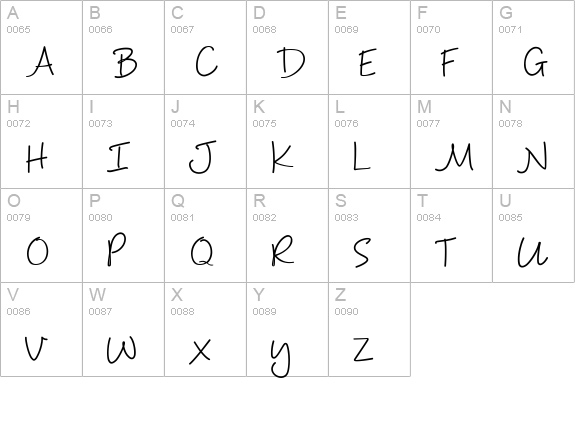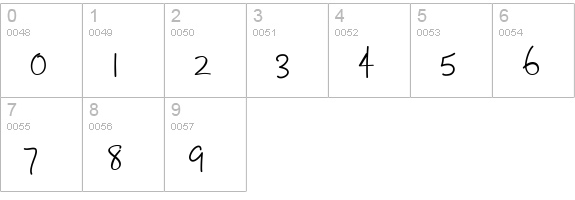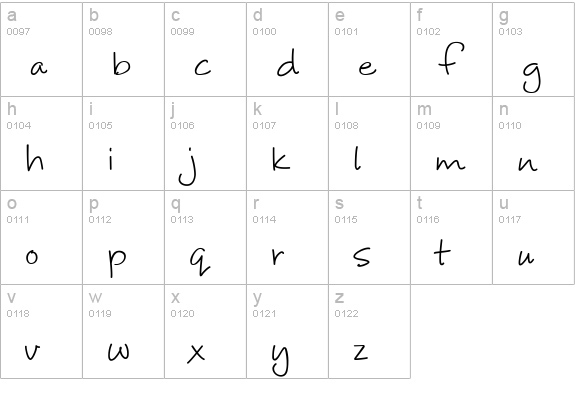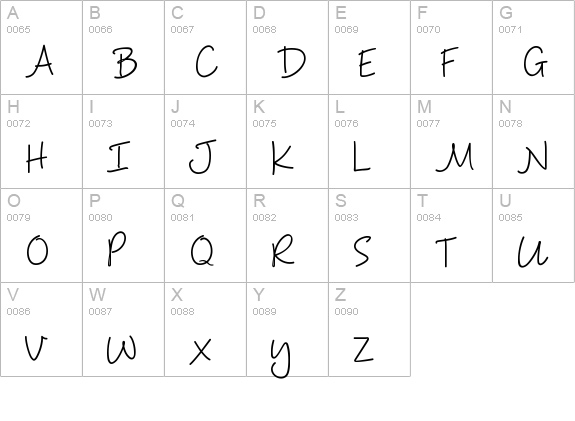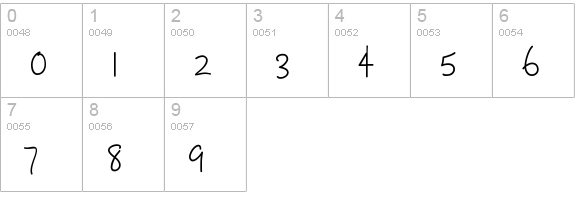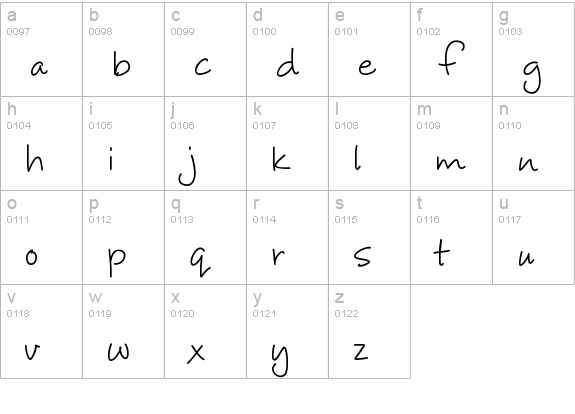
CorkyRegular Font Details
CorkyRegular font is a stylish and versatile typeface that is perfect for a wide range of design projects. With its clean lines and bold presence, this font is sure to make a statement in any layout. Whether you're designing a poster, logo, or website, CorkyRegular font will bring a touch of modern sophistication to your work. Best of all, CorkyRegular font is available for free download at FontsMarket.com. Don't miss out on this fantastic opportunity to enhance your designs with a high-quality font that won't cost you a penny. Download CorkyRegular font today and elevate your design projects to the next level.